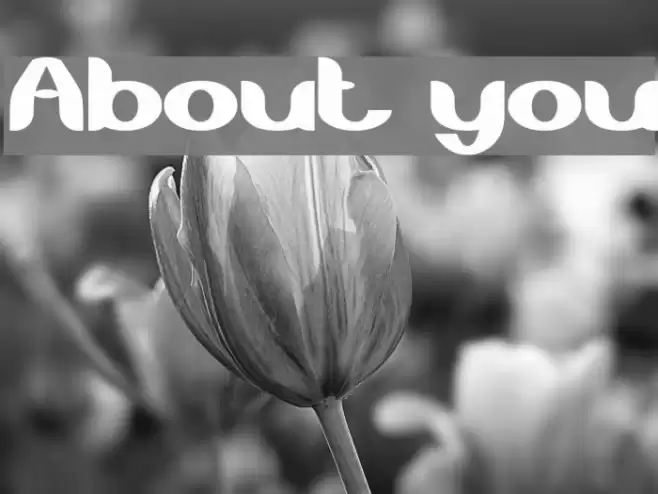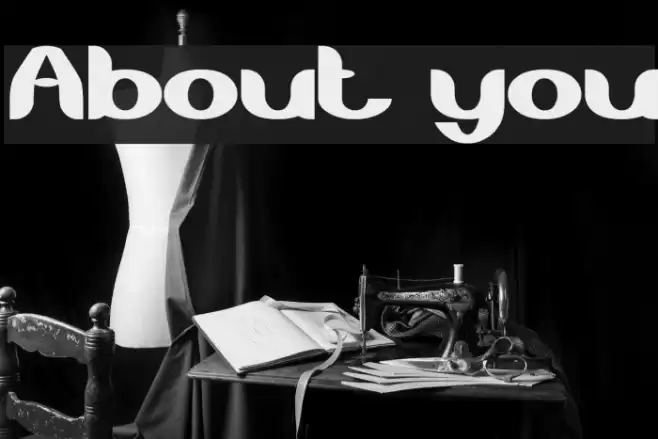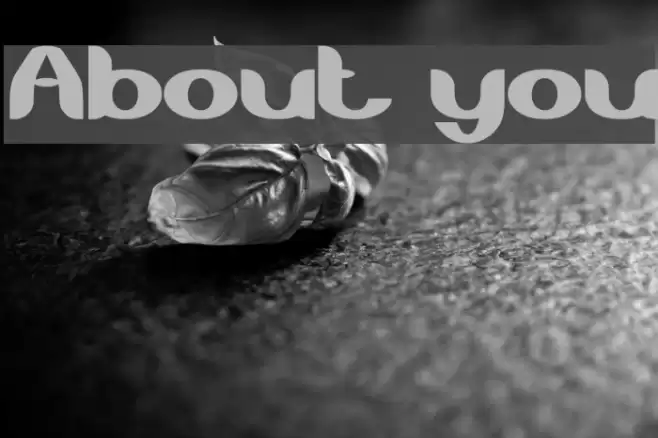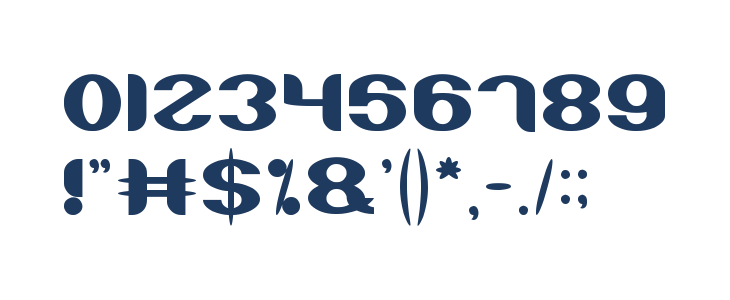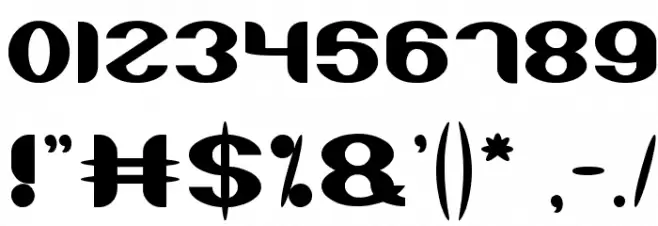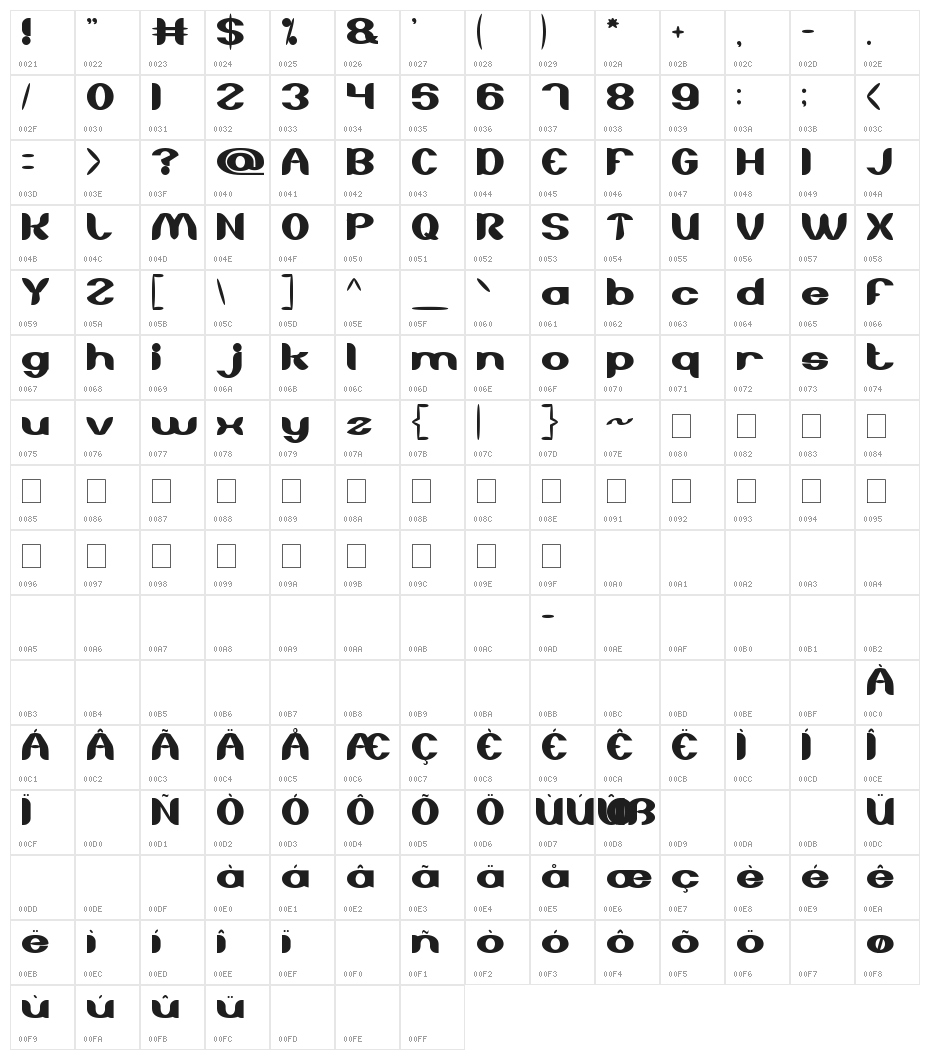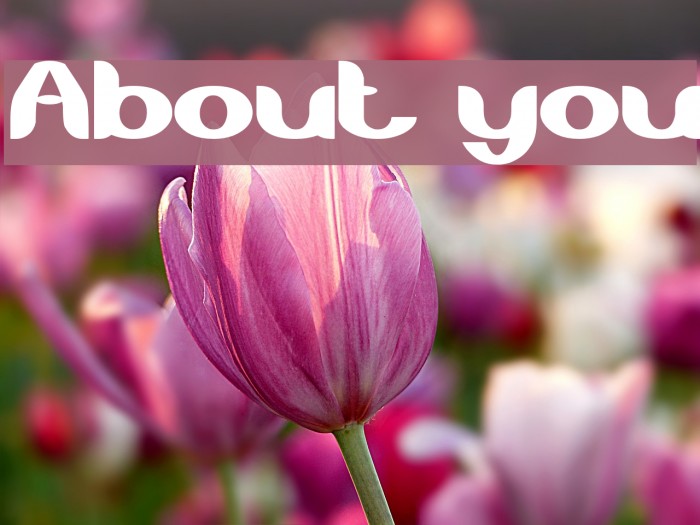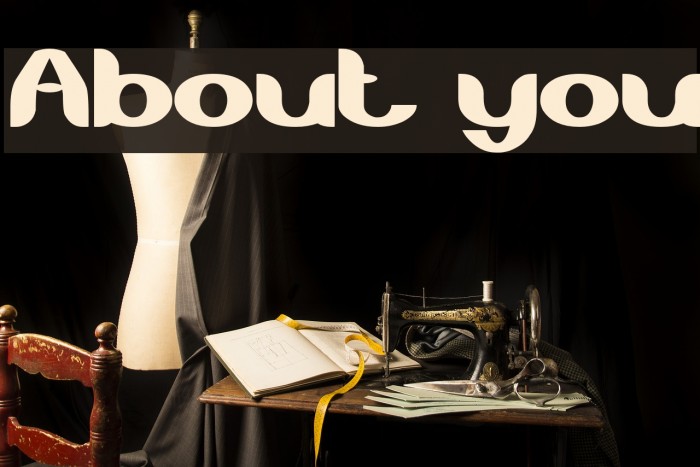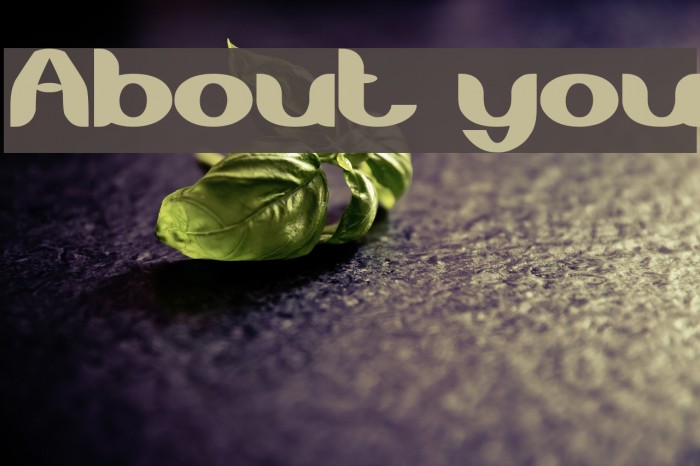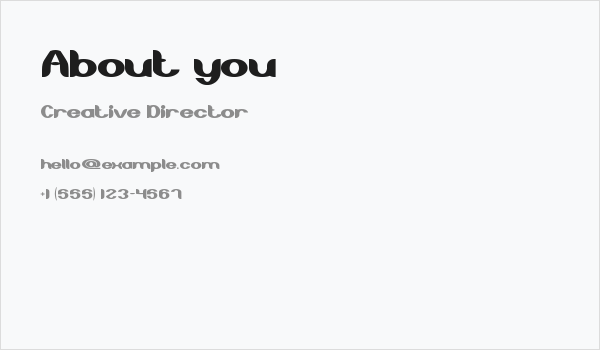
About you Font
About you Description
This font features a bold and playful design with a unique, rounded style. The characters are thick and have a distinct, almost whimsical appearance, with some letters incorporating unexpected curves and cuts that add to its charm. The uppercase and lowercase letters maintain a consistent weight, creating a cohesive look. Numbers and special characters follow the same design principles, ensuring uniformity across all glyphs. This font's boldness and unique style make it stand out, offering a modern yet fun aesthetic.
A bold, playful font with rounded, whimsical characters from Uncategorized fonts.